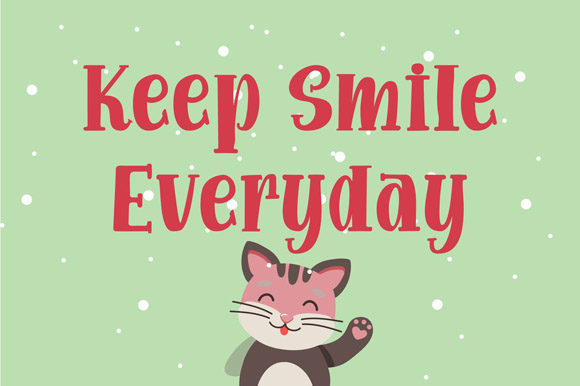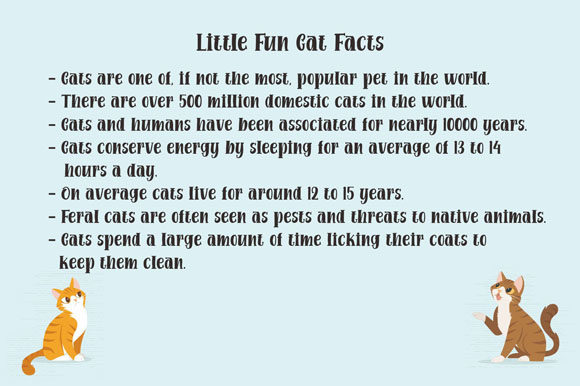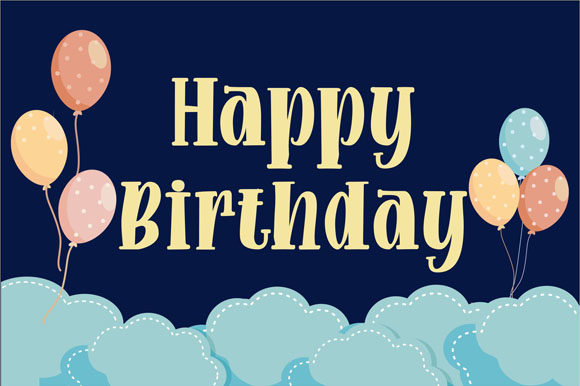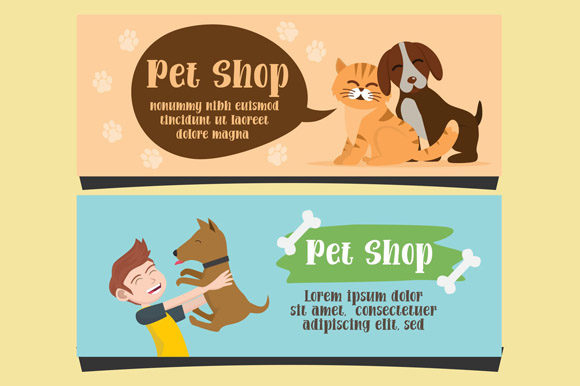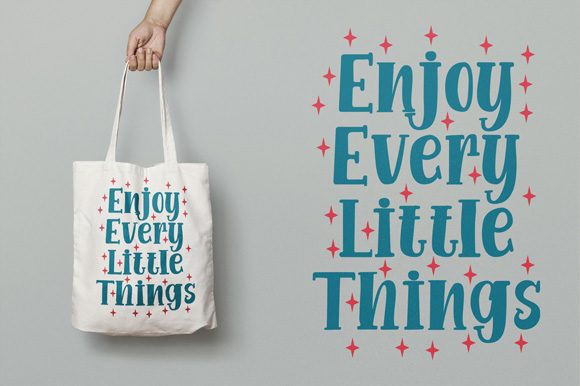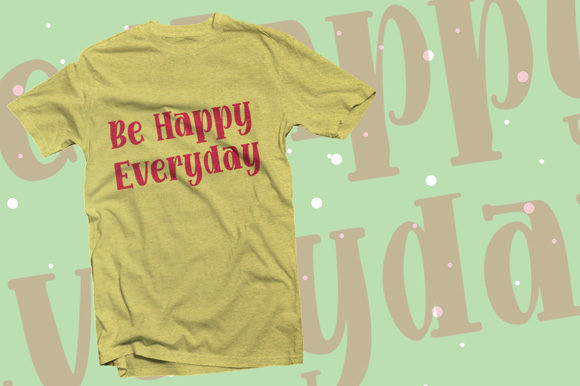
Introducing Funny Gang Font: The Ultimate Choice for Playful Designs
Are you tired of using the same old boring fonts for your designs? Look no further! Funny Gang Font is here to add a splash of fun and color to your projects. This adorable display font is perfect for children’s activities, school projects, and any design that needs a playful touch.
What Makes Funny Gang Font So Special?
Funny Gang Font is a cute and colorful display font that embodies playfulness and authenticity. Its chunky lettered design makes it perfect for adding a fun and lively touch to your designs. Whether you’re working on a children’s book, a school project, or a craft, Funny Gang Font is sure to make your design come alive!
Key Features of Funny Gang Font
- Cute and Colorful Design: Funny Gang Font features a vibrant and playful design that’s sure to capture the attention of your audience.
- Chunky Lettered Style: The font’s chunky lettered style makes it perfect for adding a bold and playful touch to your designs.
- Playful and Authentic: Funny Gang Font embodies playfulness and authenticity, making it perfect for designs that need a fun and lively touch.
- Perfect for Children’s Activities: The font’s playful design makes it perfect for children’s activities, such as coloring books, activity sheets, and more.
- Great for School Projects: Funny Gang Font is also great for school projects, such as posters, presentations, and reports.
How to Use Funny Gang Font in Your Designs
- Use it for Headings: Funny Gang Font is perfect for headings and titles. Use it to add a bold and playful touch to your design.
- Pair it with Other Fonts: Funny Gang Font pairs well with other fonts, such as sans-serif fonts. Try pairing it with a clean and simple font for a fun and modern look.
- Add it to Your Designs: Add Funny Gang Font to your designs to make them more engaging and fun. It’s perfect for designs that need a playful touch.
Benefits of Using Funny Gang Font
There are many benefits to using Funny Gang Font in your designs. Here are a few:
- Adds a Playful Touch: Funny Gang Font adds a playful touch to your designs, making them more engaging and fun.
- Perfect for Children’s Designs: The font’s playful design makes it perfect for children’s designs, such as coloring books and activity sheets.
- Great for School Projects: Funny Gang Font is also great for school projects, such as posters and presentations.
- Easy to Read: The font’s chunky lettered design makes it easy to read, even for children.
Who Can Benefit from Using Funny Gang Font?
Funny Gang Font is perfect for anyone who needs to add a playful touch to their designs. Here are a few examples of who can benefit from using this font:
- Designers: Designers who work with children or create designs for kids can benefit from using Funny Gang Font.
- Crafters: Crafters who create handmade cards, gift tags, and other paper crafts can use Funny Gang Font to add a playful touch to their creations.
- Teachers: Teachers can use Funny Gang Font to create engaging and fun lesson plans, posters, and presentations.
- Parents: Parents can use Funny Gang Font to create fun and playful designs for their kids, such as birthday cards and activity sheets.
Funny Gang Font is a cute and colorful display font that’s perfect for adding a playful touch to your designs. Its chunky lettered design makes it easy to read and perfect for children’s activities and school projects. With its playful and authentic design, Funny Gang Font is sure to make your designs come alive! So why wait? Download Funny Gang Font today and start creating fun and engaging designs!